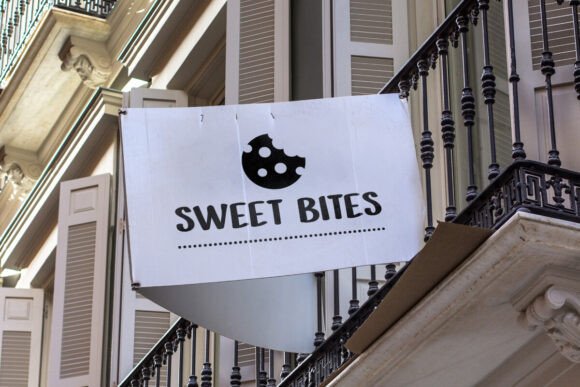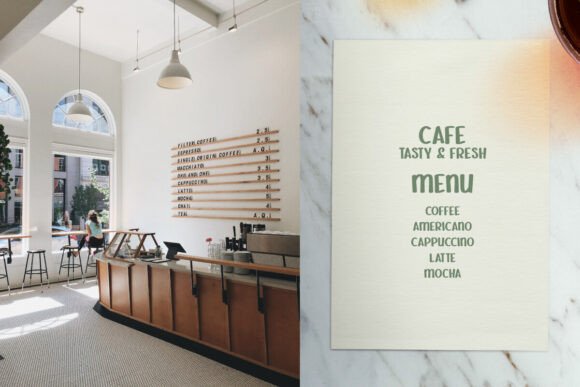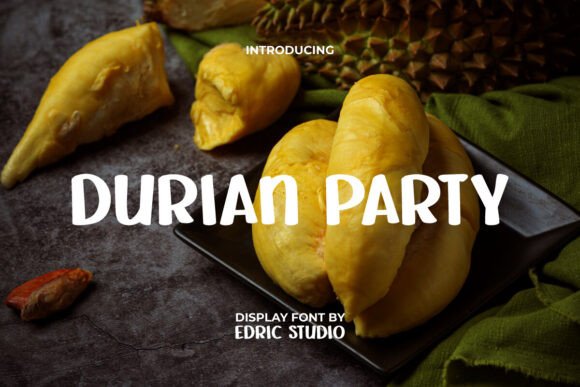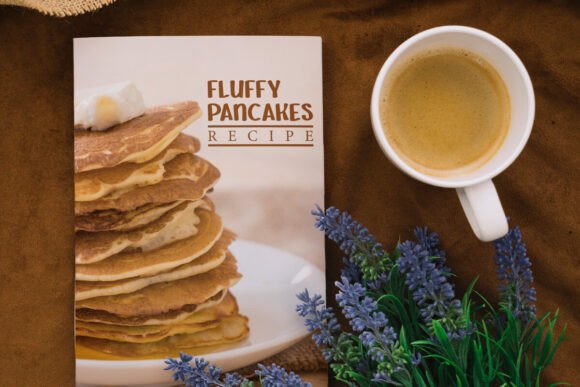
Durian Party Font: A Cute & Playful Display Font for Food & Branding
About the Durian Party Font
Explore the possibilities with Durian Party Font, a font that offers both beauty and functionality. Durian Party Font is a cute foody display font inspired by the King Fruit. This font is thick with short lines, so that it gives a lively impression to every design created and is easy to read clearly. It will be suitable for any business, such as accessories, bakery and pastry, cafe, entertainment, event organizer, fashion, kids stuff, marketing material, photography, printing, publishing, writer, and many more!
Durian Party Font comes with a full set of ALL CAPS for Uppercase and Lowercase Basic Characters, Numbers, a large range of Punctuation, and Symbols. It has a funny character set, perfectly managed with well-spaced and kerning. Durian Party Font will be able to complement any design including: brand image, cover, custom design, invitation, label, menu board, merchandise, packaging design, poster, quote, screen print, signage, stationery, sticker, title, website page, etc.